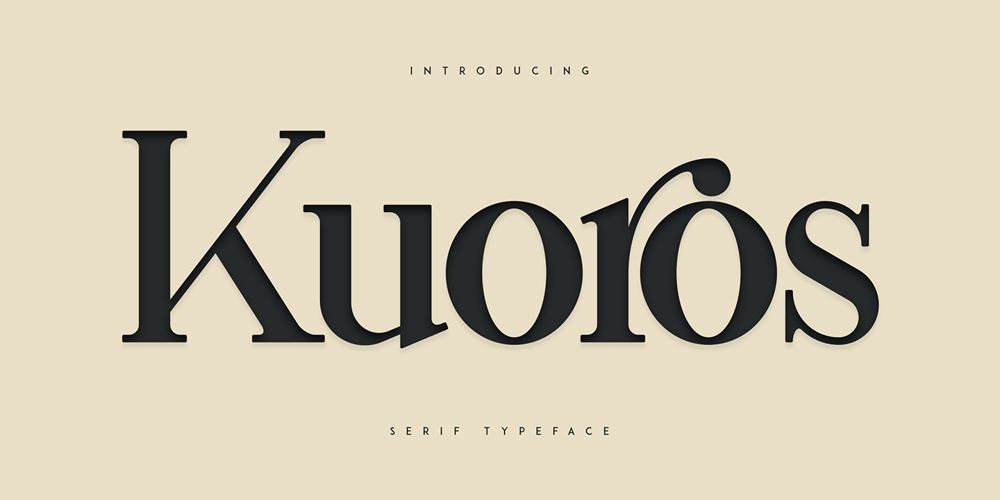
Kuoros VP
Kuoros VP font
Kuoros VP Font Family was designed by Vladimir Fedotov, Plamen Petrov and published by VP Creative Shop. Kuoros VP contains 5 styles and family package options. Introducing Kuoros Serif typeface – 5 fontsKuoros is classic, sophisticated typeface with 5 weights to enchant your next project. Very versatile fonts that works great in large and small sizes. Basic latin and advanced latin character sets are supported!Kuoros is perfect for branding projects, home-ware designs, product packaging, magazine headers – or simply as a stylish text overlay to any background image. Uppercase, lowercase, numeral, punctuation & Symbol Hairline Light Regular Bold Black Ligatures Multilingual support Feel free to contact me if you have any questions!Mock ups and backgrounds used are not included.Thank you! Enjoy!